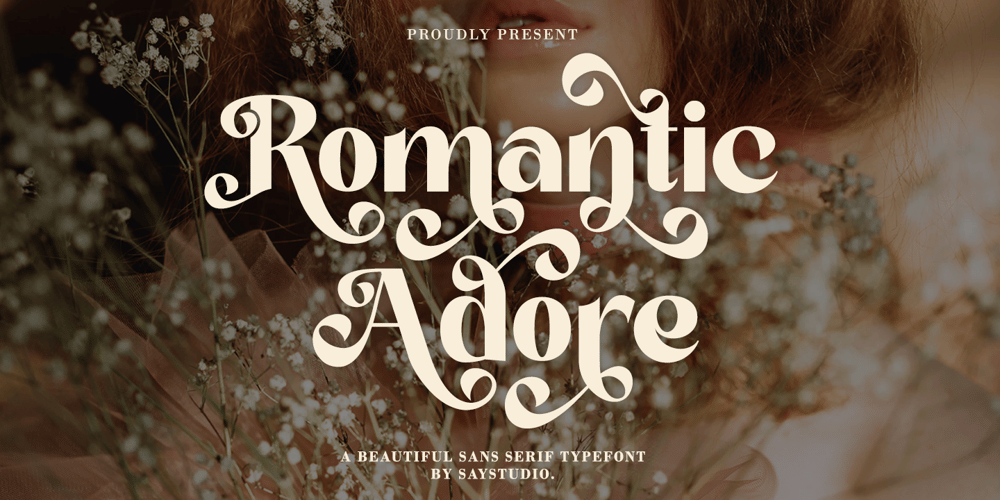
Romantic Adore
Romantic Adore font
Romantic Adore Font Family was designed by Mussyayin and published by Say Studio. Romantic Adore contains 2 styles and family package options. Romantic Adore is a beautiful sans font . Made with accurate accuracy with beautiful curves. With swash alternative characters and ligatures makes your project will be awesome! Romantic Adore perfect for wedding invitation, editorial projects, Logo design, web font, clothing branding, product packaging, magazine headers, or simply as a stylish and make your work even more amazing.What’s Included :- Romantic Adore Regular – Romantic Adore Italic- Beautiful Alternates & Ligatures- Multi Language- Standart Glyphs- Symbols and Number- Works on PC & Mac Simple installationsWish you enjoy our font and if you have a question, don’t hesitate call me :-)Thanks, Have a Great DaySay Studio